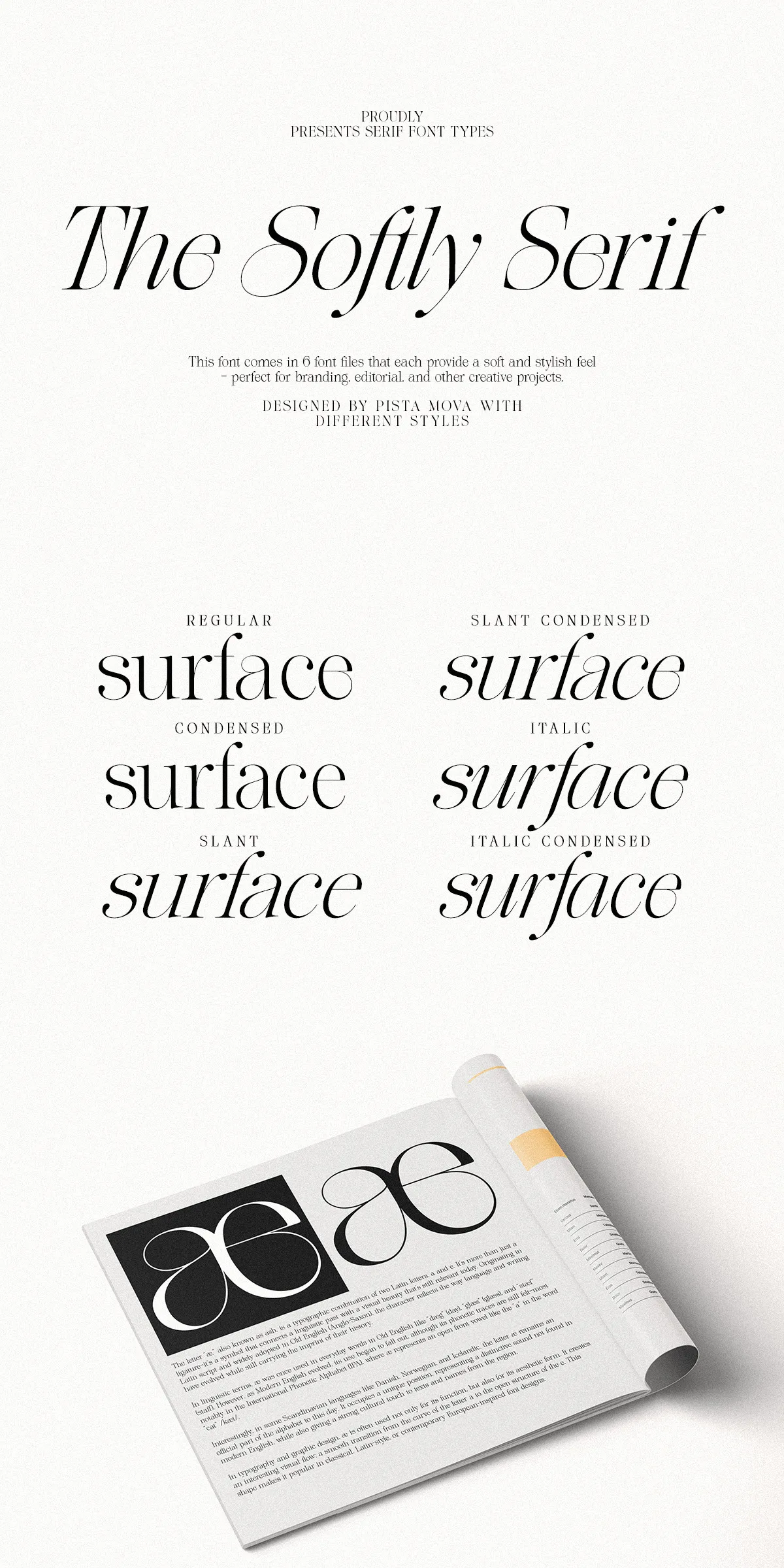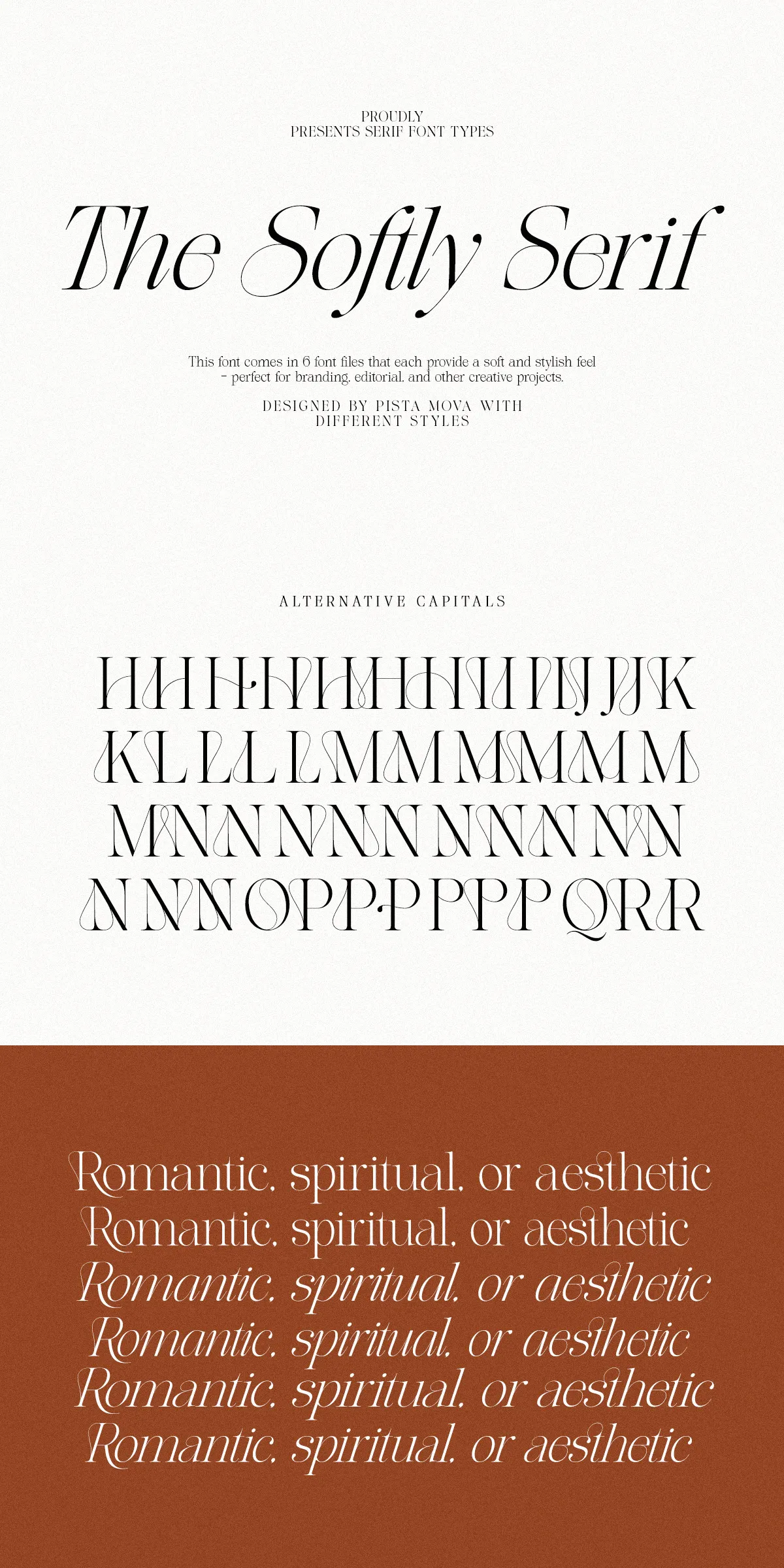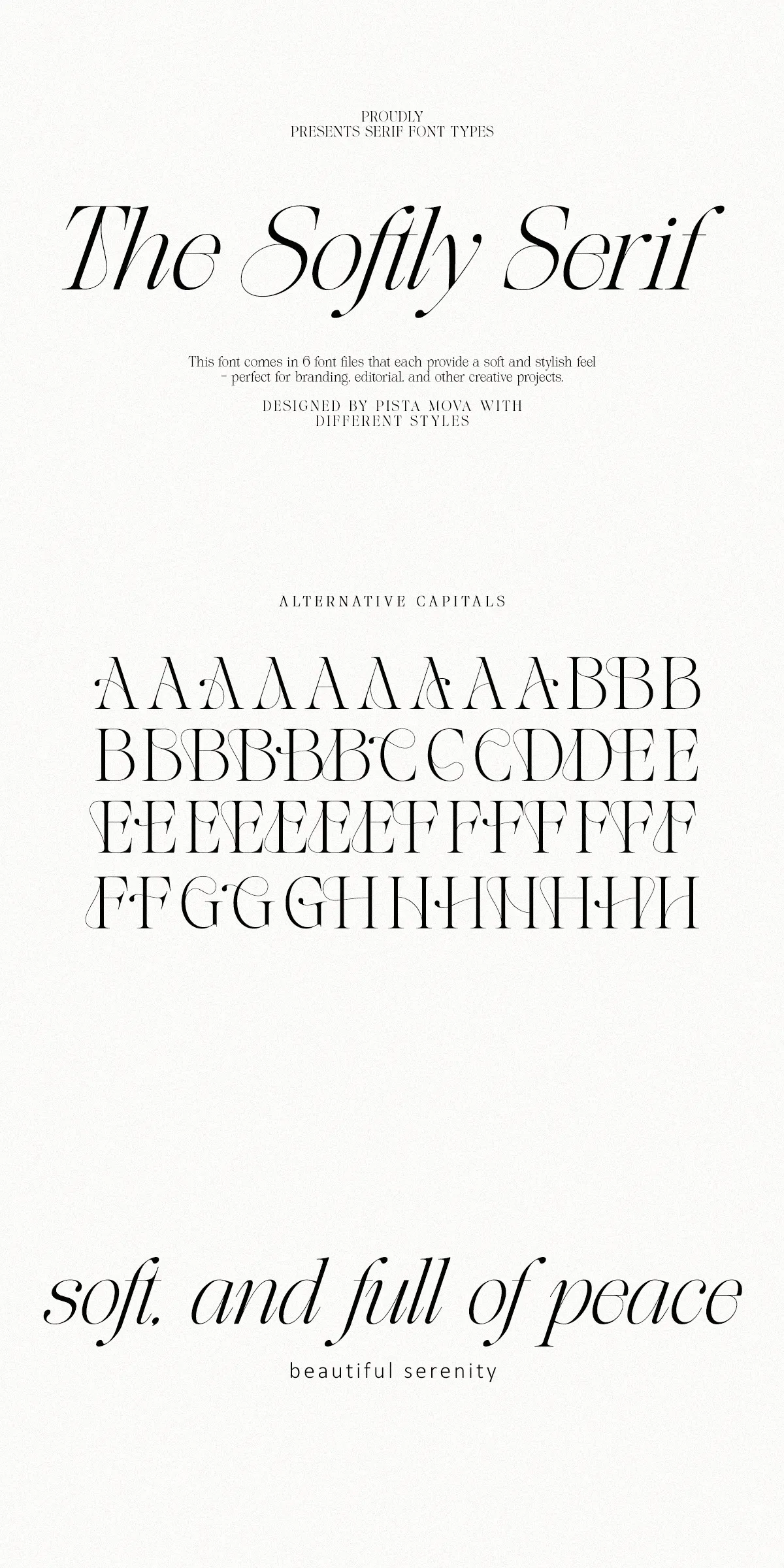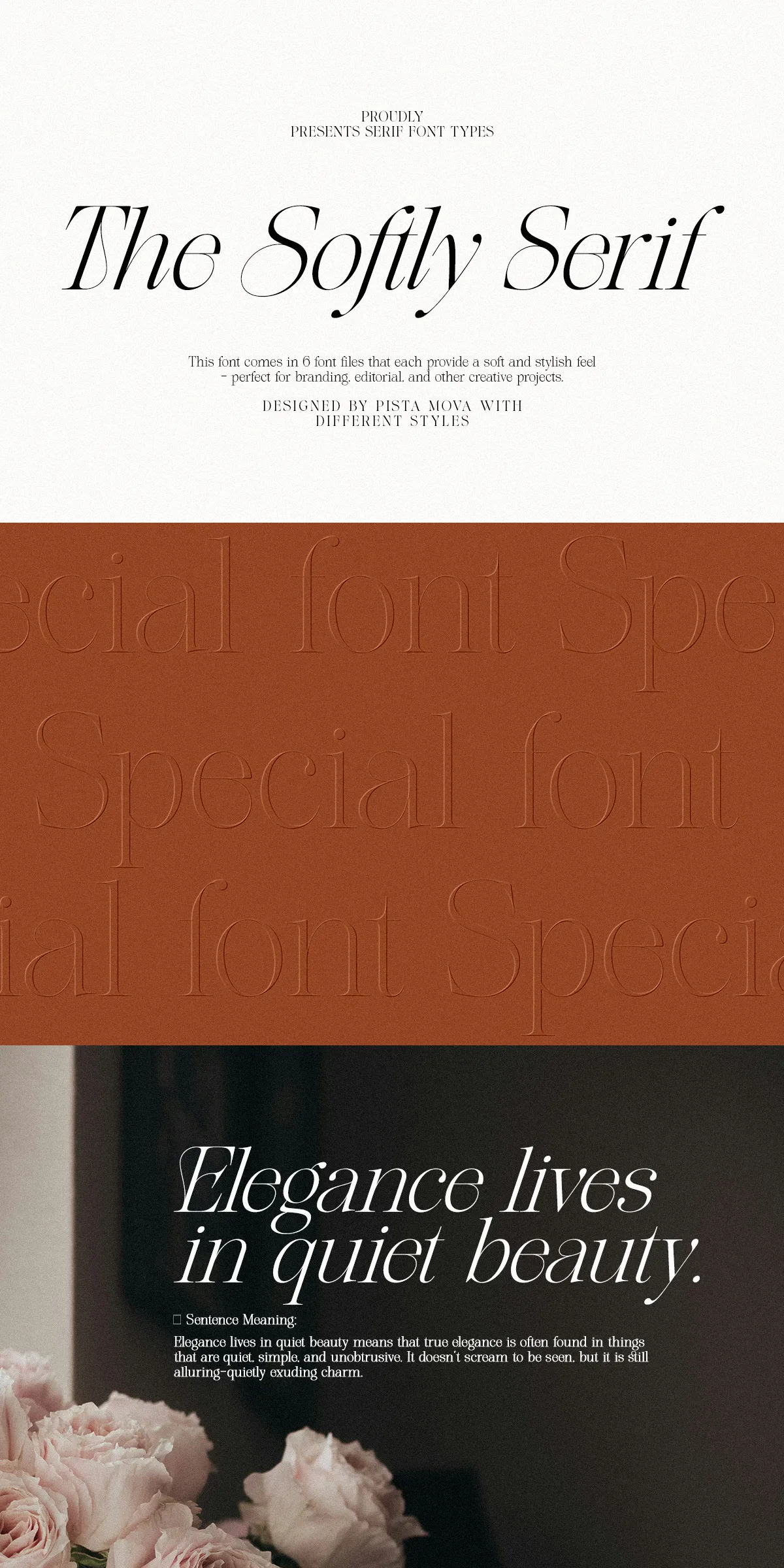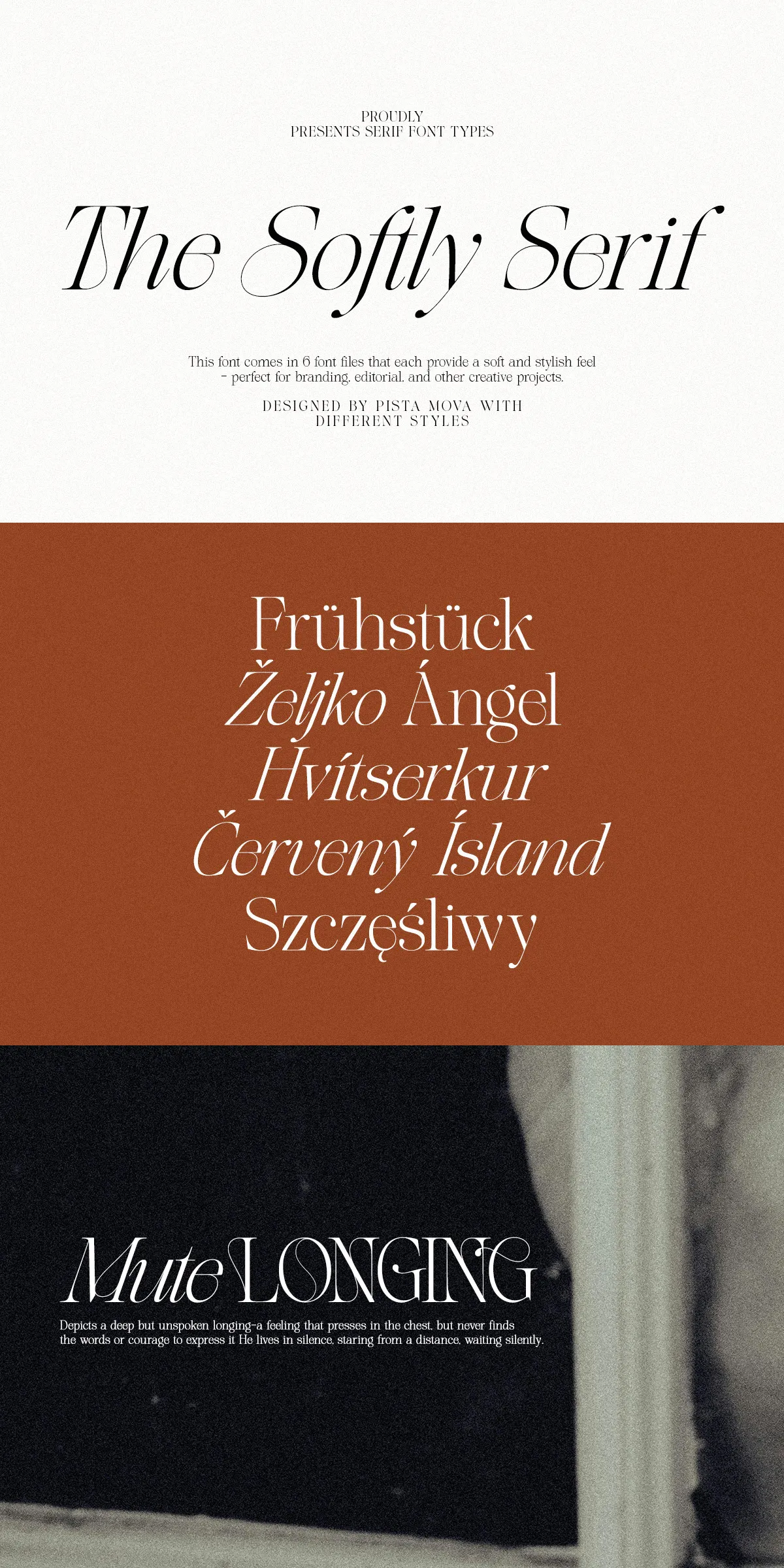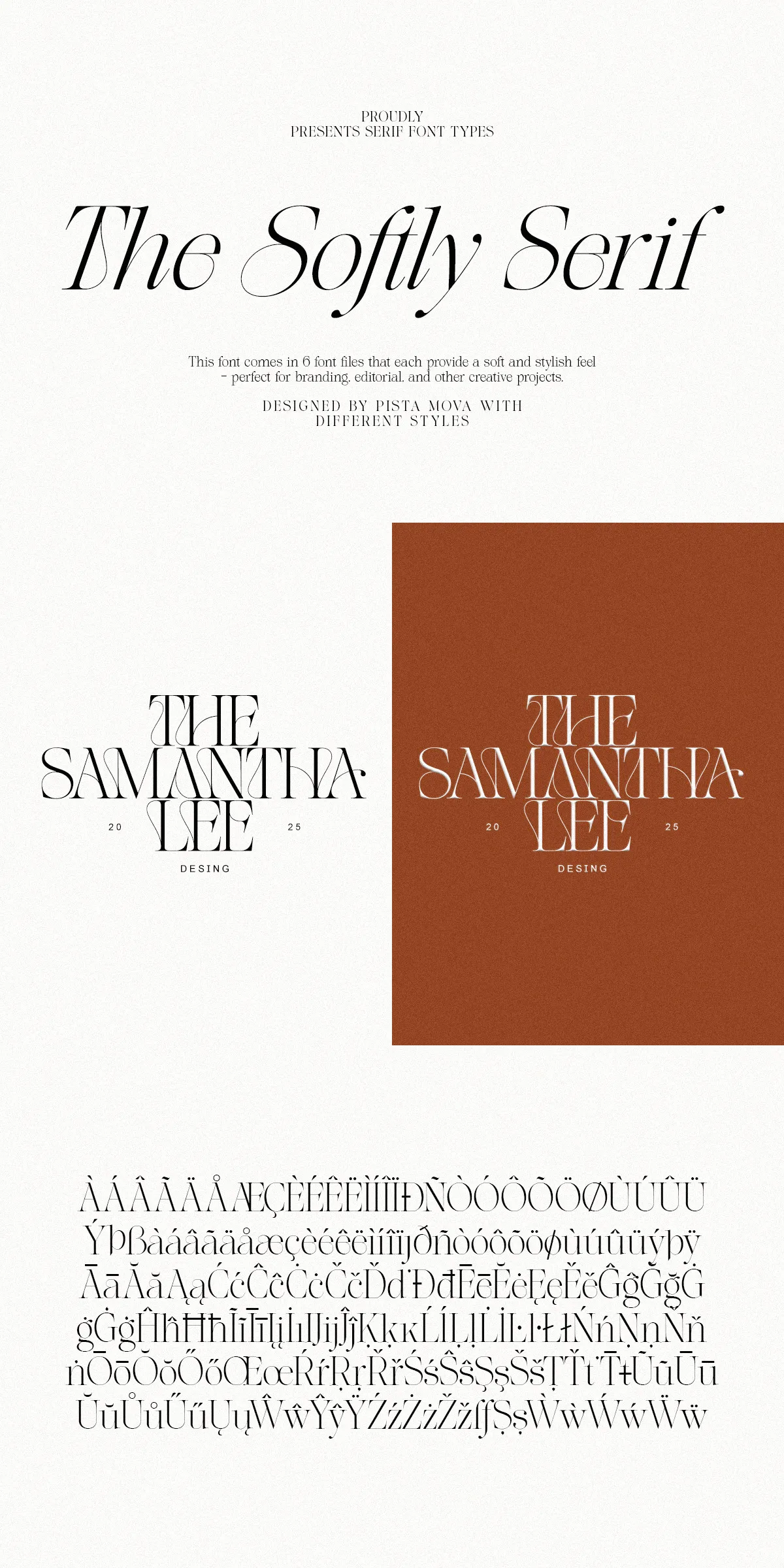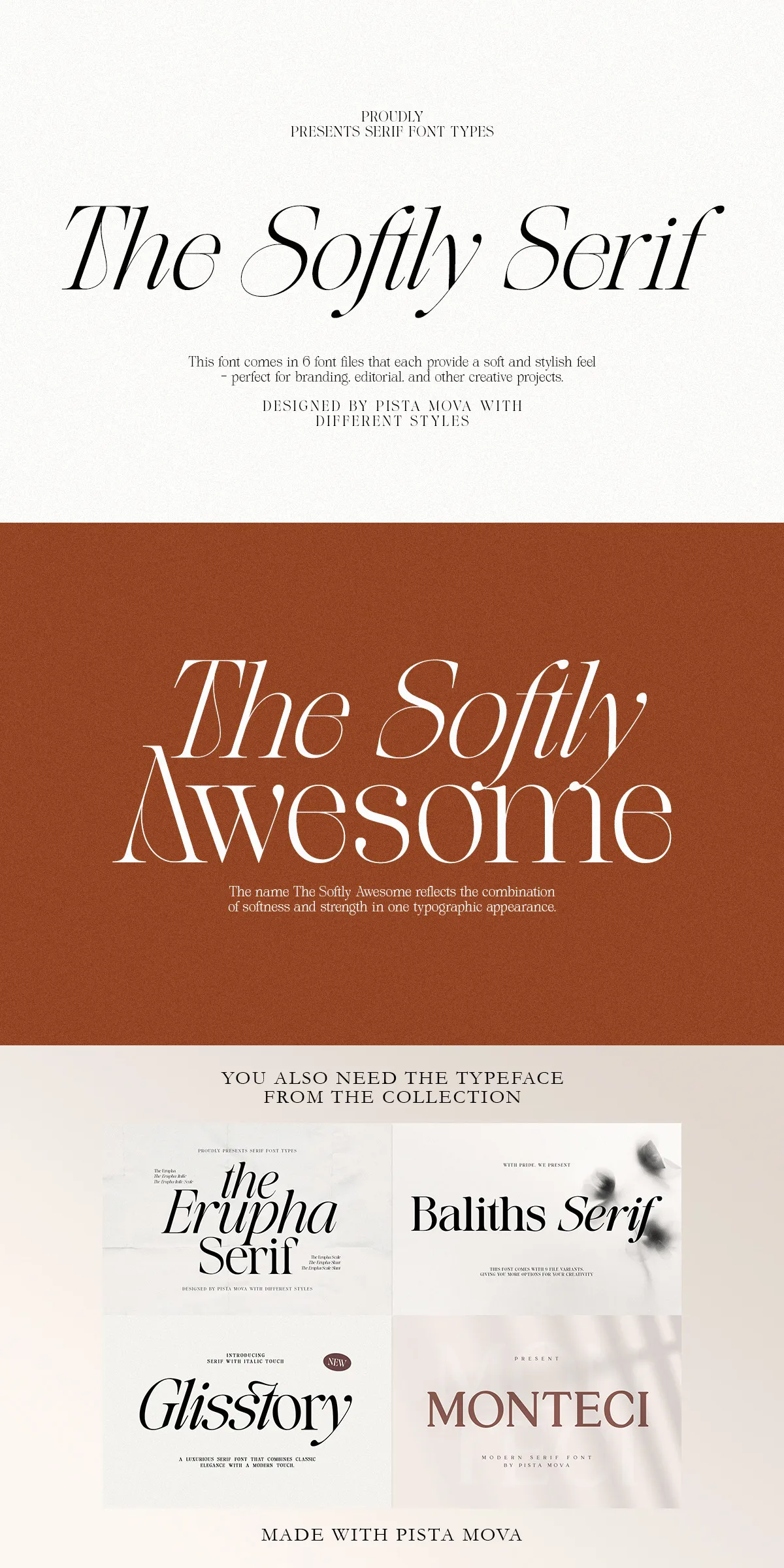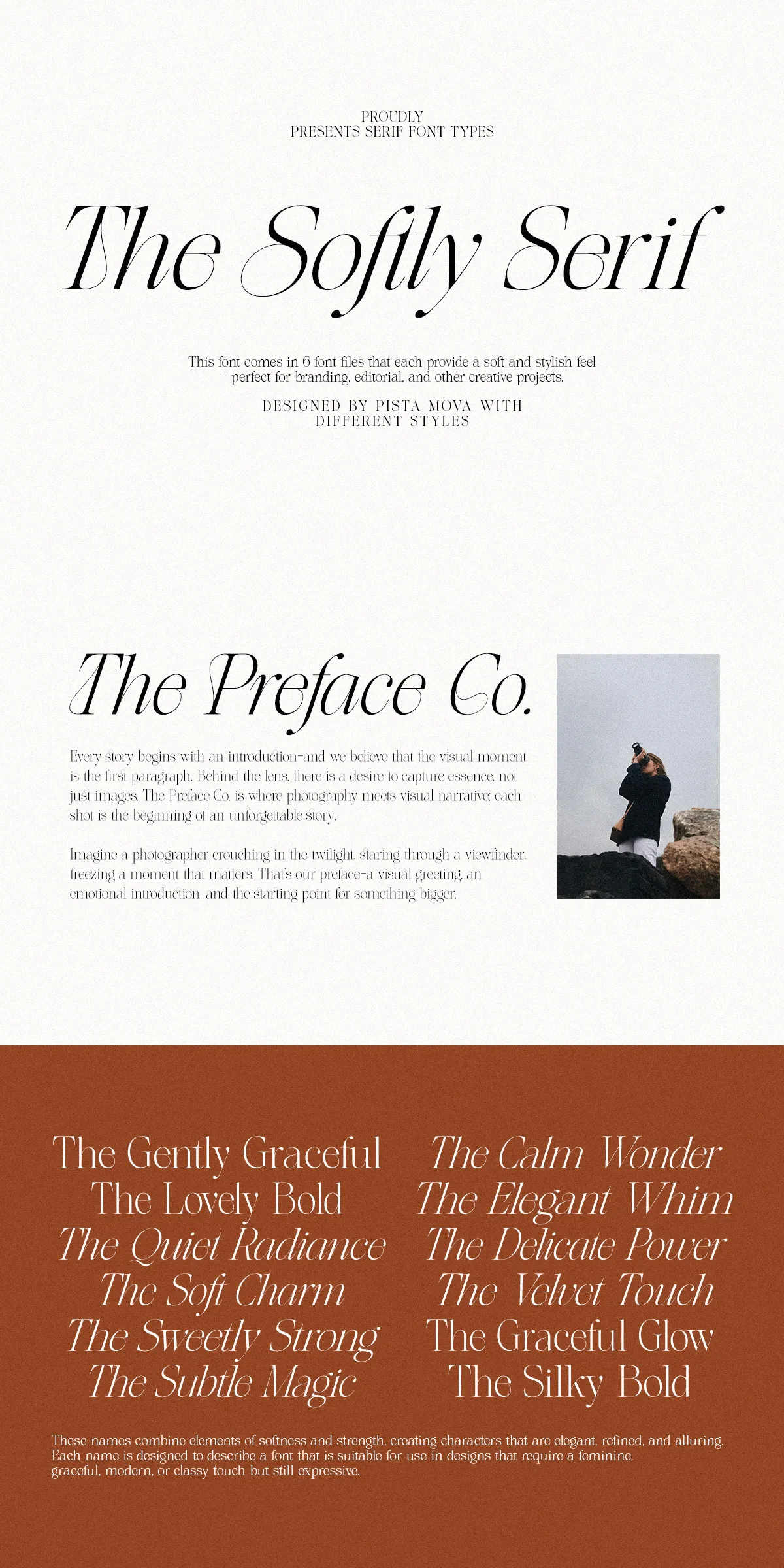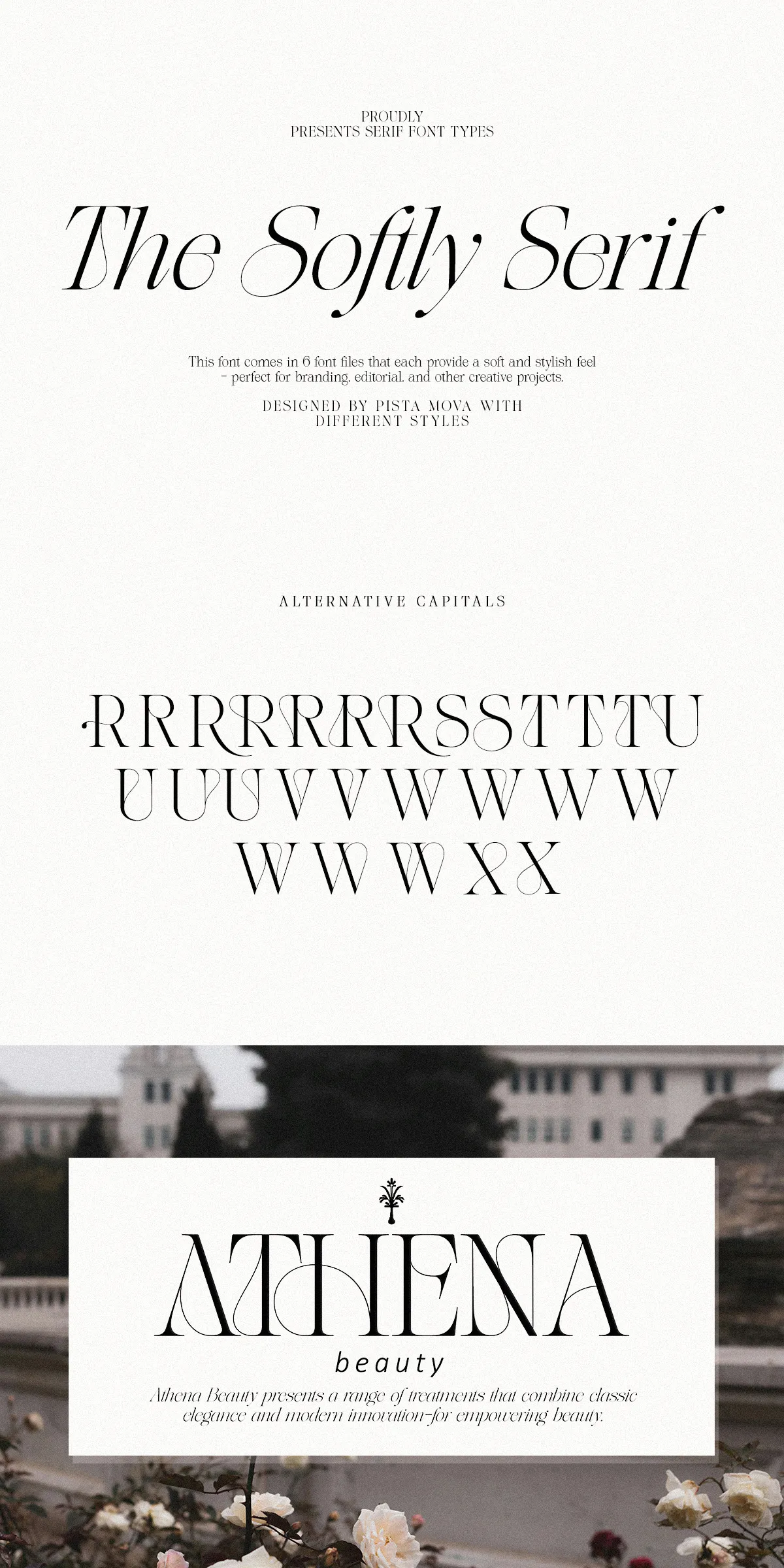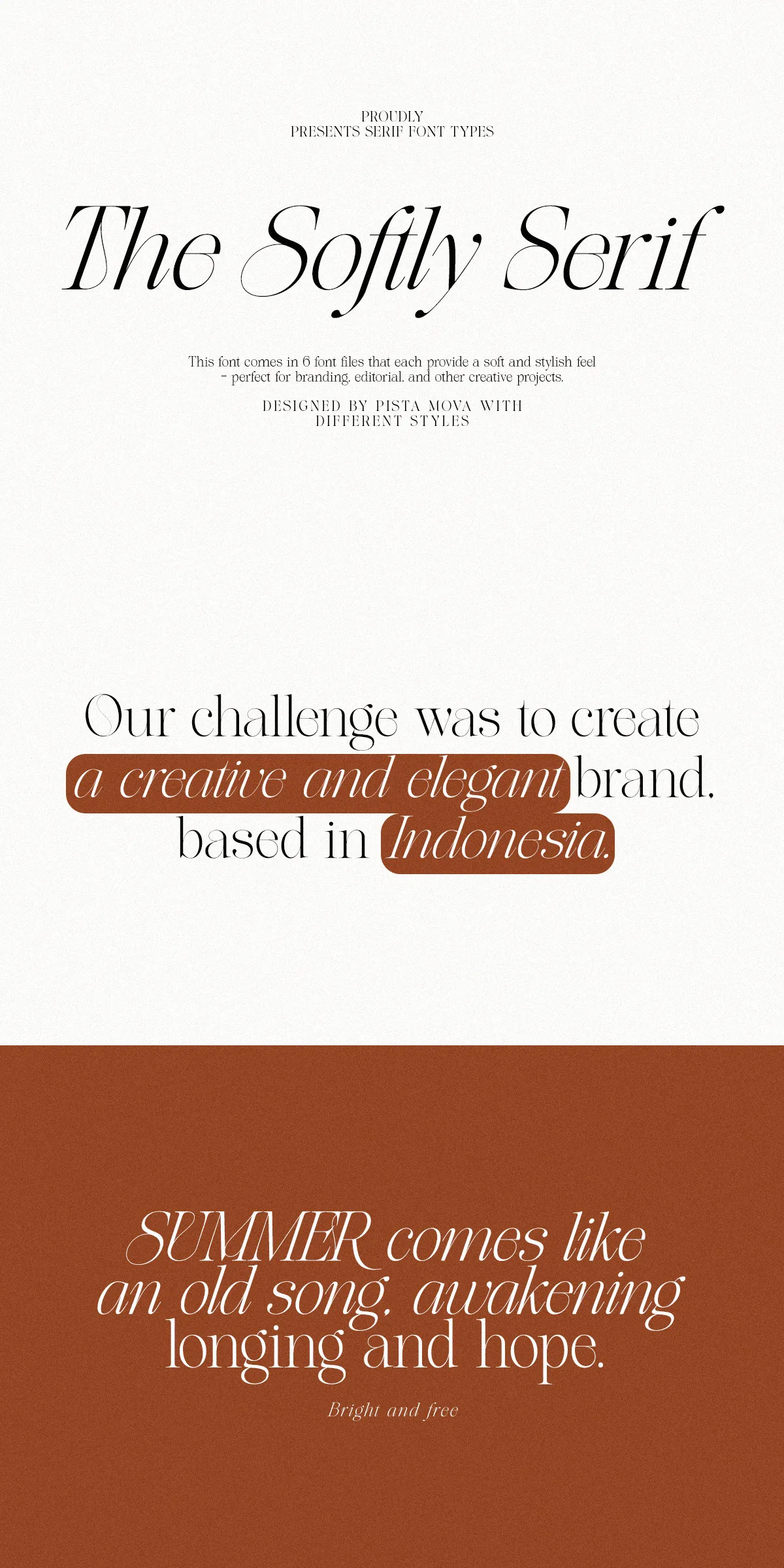
Step into a world where typography becomes art. Softly Serif isn’t just a typeface — it’s a sensory experience crafted for creators who demand both beauty and precision. With its high-contrast strokes, fluidly sculpted curves, and meticulously designed true italics, this serif italic typeface transforms every word into a visual masterpiece. Whether you’re building a luxury brand identity, designing an editorial layout, or crafting a captivating website, Softly Serif delivers quiet power, refined detail, and a lasting impression.
Why Softly Serif Elevates Every Creative Vision
In a digital landscape flooded with generic fonts, Softly Serif stands apart by merging classic craftsmanship with contemporary clarity. Each letterform is hand-tuned for harmony, balance, and emotional resonance. This is not just a serif font — it’s a tool for storytelling, a voice for elegance, and a signature for distinction.
1. True Italic Design — Not Just Slanted Letters
Softly Serif delivers true italics — not a mere slant of uprights, but an entirely reimagined set of characters designed to flow with rhythm and intention. The italic version features dynamic swashes, refined stroke dynamics, and a natural reading rhythm that pairs perfectly with the uprights. Use them together to create sophisticated typographic hierarchies or let the italic stand boldly on its own.
2. High-Contrast Elegance — Visual Harmony with Depth
Experience the drama of contrast without losing legibility. Softly Serif’s sharp transitions between thick and thin strokes create a visual symphony — one that commands attention while maintaining a refined, graceful presence. Perfect for headlines, quote blocks, signature lines, or luxury product names, this font adds a layer of depth that ordinary typefaces simply can’t match.
3. Elegant Alternates — Design with Personality
Infuse your work with uniqueness through a curated set of stylistic alternates. Swap out standard characters for more expressive versions — from refined serifs to delicate curling endings. Use these variations to create visual interest, enhance readability, or add a subtle signature flair to your brand. The result? Designs that feel intentional, personal, and elevated.
4. Advanced OpenType Features — Typography at Your Fingertips
Take full command of your design with smart OpenType support. Control every detail with precise access to:
- Ligatures: Automatically generate smooth, professional text flow with built-in ligature pairs like
ff,fi, andft. Eliminate awkward spacing and improve typographic cohesion. - Stylistic Sets: Apply curated sets to switch between elegant, restrained, or expressive versions of the typeface in a single click.
- Contextual Alternates: Characters adapt intelligently based on surrounding letters, ensuring natural flow and visual consistency.
Built for Creators Who Value Quality and Versatility
Softly Serif is engineered for real-world applications across industries, platforms, and audiences. It thrives in environments where visual integrity and emotional impact matter most.
Brand Identity with Emotional Resonance
Build a brand that feels luxurious, authentic, and human. Softly Serif exudes trust and refinement — ideal for fashion labels, boutique studios, lifestyle brands, and high-end product launches. Use it for logos, taglines, packaging, and marketing collateral to establish a voice that matters.
Editorial & Print Layouts That Captivate
Enhance magazines, books, newsletters, and brochures with a typeface that invites the reader in. Its graceful curve and balanced weight create a serene yet compelling reading experience. Perfect for feature articles, poetry sections, or author bios, where emotion and elegance must shine through.
Web & Digital Design with Refinement
Optimized for digital screens, Softly Serif renders crisply across devices — preserving its delicate details without sacrificing performance. Use it in website headers, social media graphics, email campaigns, and landing pages to create an atmosphere of polished sophistication.
Global Reach with Multilingual Support
Connect with audiences worldwide. Softly Serif supports over 90 languages, including complex scripts like Arabic, Cyrillic, and Devanagari. Whether you’re designing for a European publisher, an Asian creative agency, or a Middle Eastern brand, your message stays clear, consistent, and beautifully rendered.
Softly Serif isn’t just a font. It’s a commitment to quality, intention, and beauty in design. It’s for the creators who see typography not as decoration, but as a core element of meaning and emotion.
Designed with care, built for impact — let every letter tell a story worth reading.